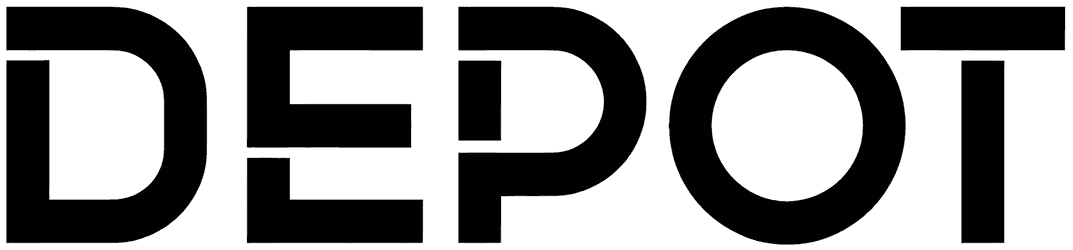
Depot Font
Present your typography with an adventurous feel with Depot! It’s an old-school font that provides 2 styles for you to create the design you wish with amazing qualities. The first style is stenciled; it offers thick, brave characters, while the other is inlined and outlined with a fun style that’s also 3D!
The sans serif style letterforms available don’t contain any lowercase alphabets. Depot is an informal futuristic font and is best for branding, clothing, banners, adverts, and book covers.